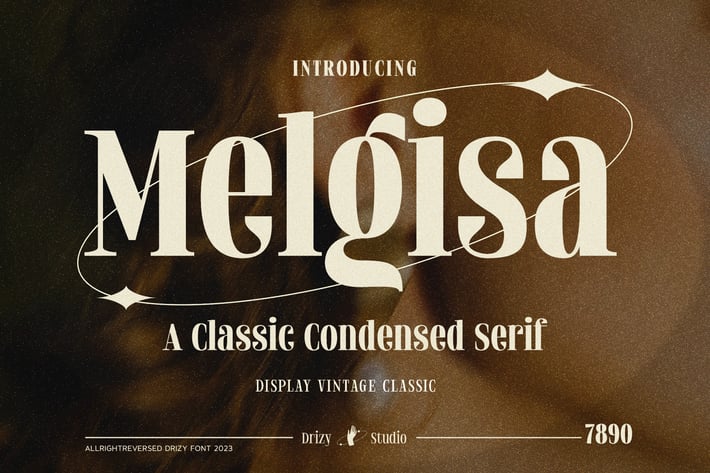
Melgisa - Classic Vintage Serif Font
Melgisa – Classic Vintage Serif Font
Melgisa is a Classic Vintage Serif Font from Drizy Studio. Offering all the styles you need for your high-class vintage projects.
Melgisa features:
- Uppercase & Lowercase
- Alternatives
- Numeral & Punctuations
Melgisa is a Classic Vintage Serif Font from Drizy Studio. Offering all the styles you need for your high-class vintage projects.
Melgisa features:
- Uppercase & Lowercase
- Alternatives
- Numeral & Punctuations